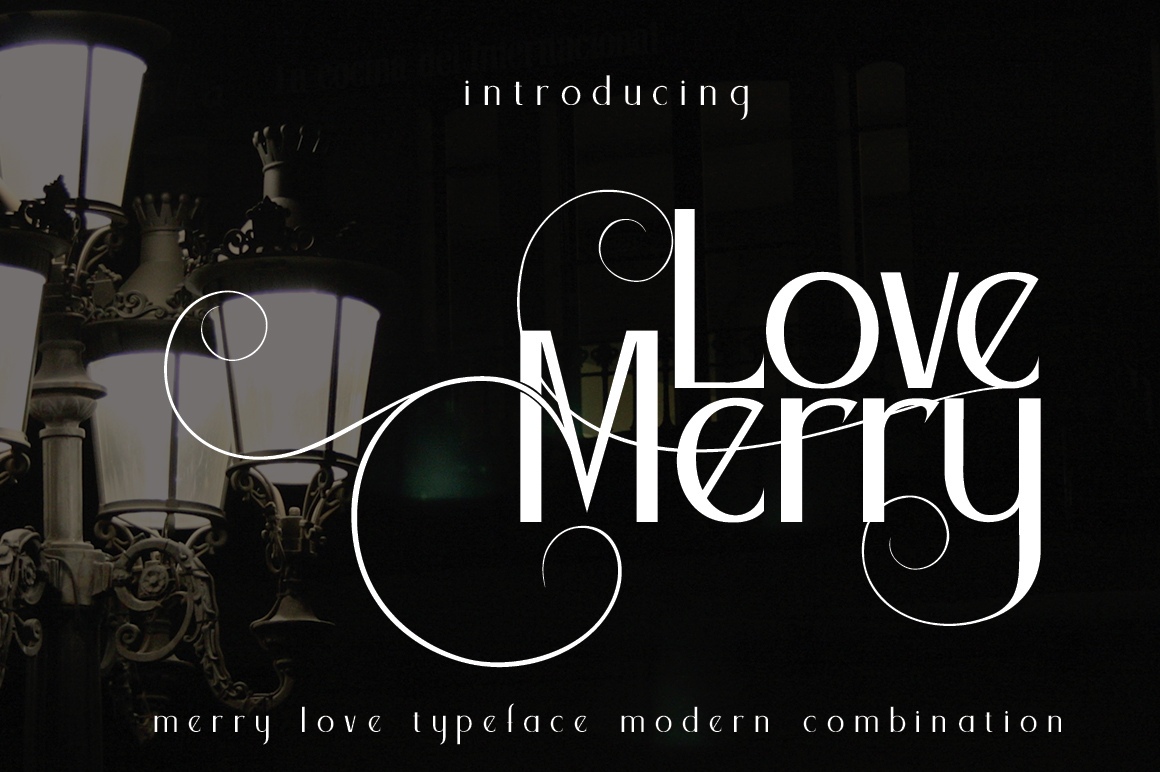
Merry Love Font
Merry Love Font is perfect for romantic branding projects, wedding invitation design, Valentine's Day campaigns, boutique packaging solutions, greeting card typography, love-themed social media graphics, romantic restaurant menus, and heartfelt advertising materials. This charming typeface works beautifully in both digital applications and print media where warmth, affection, and emotional connection are central design elements.
What makes Merry Love Font so exciting is its perfect capture of romantic sentiment through graceful letterforms that instantly communicate love, joy, and heartfelt emotion with every character. The font features elegant, flowing characters with gentle curves, romantic flourishes, and tender proportions that create an atmosphere of warmth and affection. Its loving personality and emotional appeal make it ideal for brands seeking to establish deep emotional connections with their audience while communicating romance, celebration, and joyful moments that touch the heart.
The Merry Love Font family includes multiple stylistic variations with different romantic intensities, along with decorative hearts and ornamental elements. Each style maintains the typeface's loving character while offering comprehensive character sets including romantic numerals, affectionate punctuation marks, and special symbols designed to enhance love-themed communications and emotional branding efforts across various romantic contexts.
This extraordinary typeface represents the perfect marriage of romantic expression and professional typography for celebration and lifestyle industries. Whether you're developing wedding service identities, creating Valentine's marketing materials, or designing romantic event promotions, Merry Love Font Free Download provides the heartfelt warmth and versatility needed to create memorable emotional experiences. The font's romantic heritage makes it particularly effective for wedding planners, jewelry stores, romantic restaurants, and businesses celebrating love and special moments.
The carefully crafted romantic details and optimized readability in Merry Love Font ensure both emotional impact and clear communication across all applications. Its loving presence makes it perfect for romantic headlines, heartfelt invitations, and celebration materials where its full romantic character can create emotional bonds with audiences seeking to express and celebrate love in all its beautiful forms.